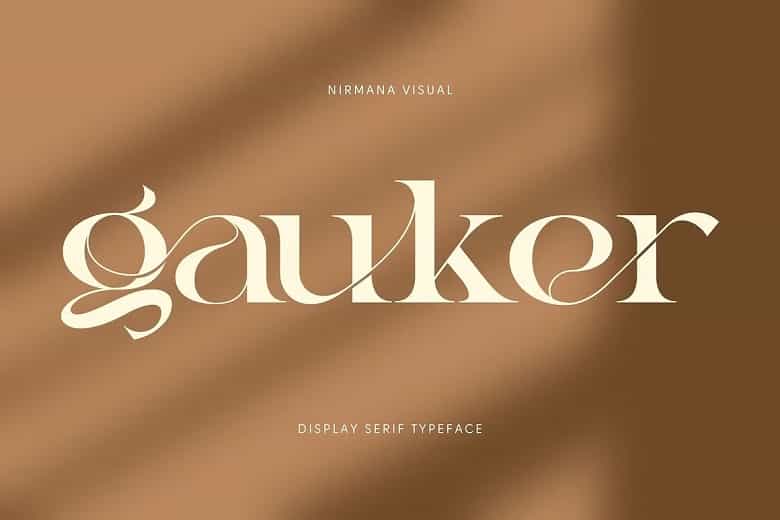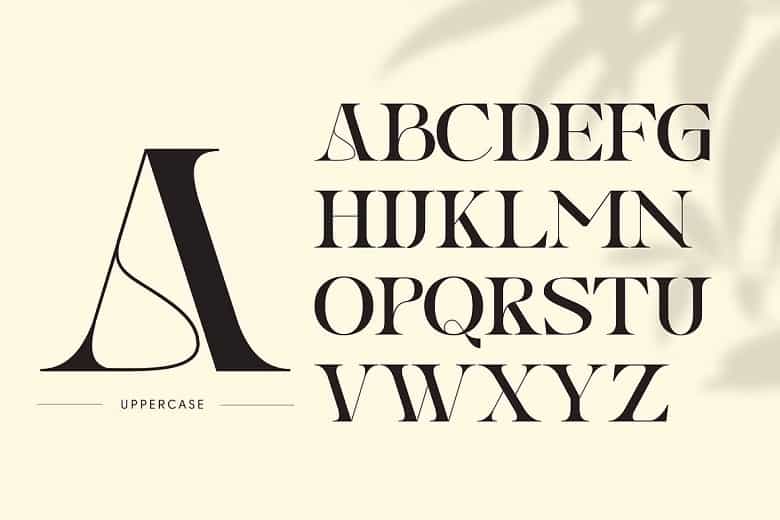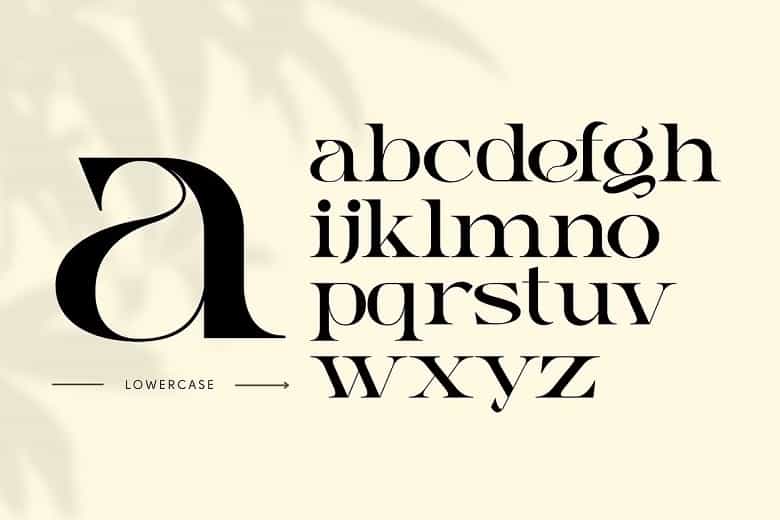
Gauker is a display serif font that comes with elegant characters shaped good to cater to the current fashion. It is created and posted by the Nirmana Visual. Gauker Font adds a graceful typography for a range of creativities such as logos and branding, social networks and advertisements, and products.